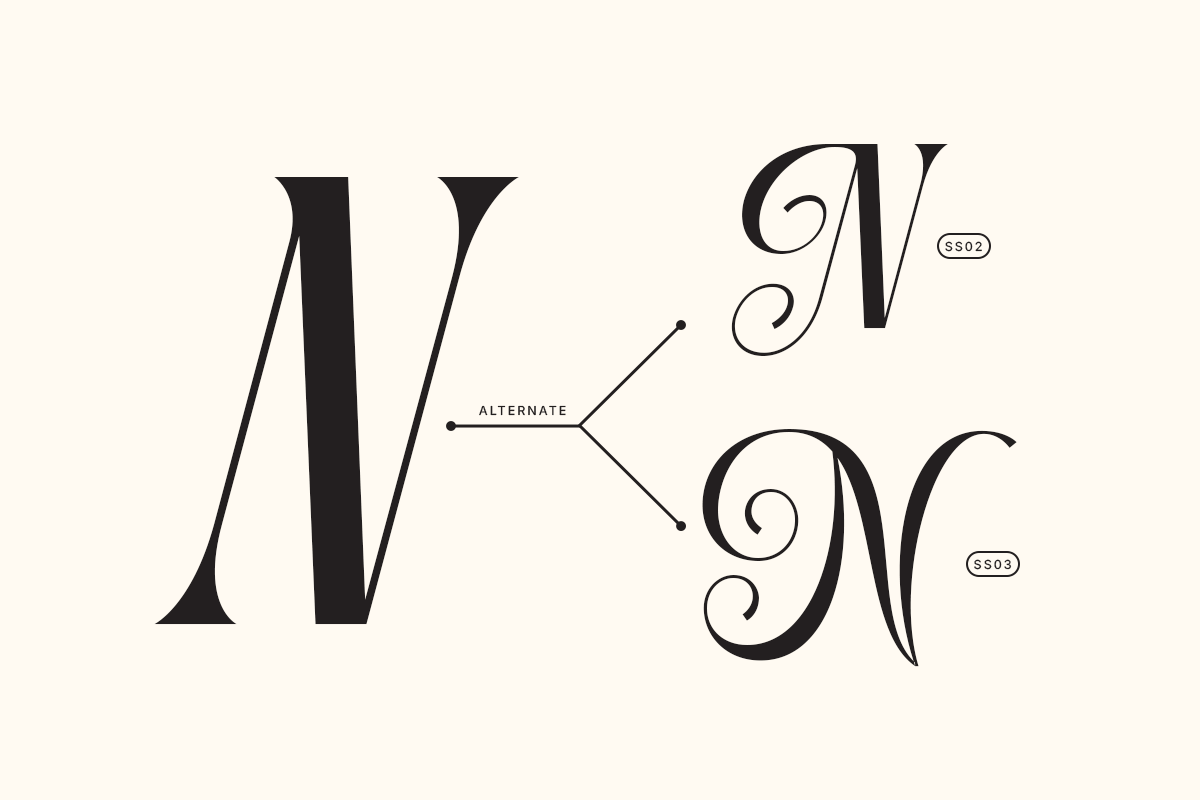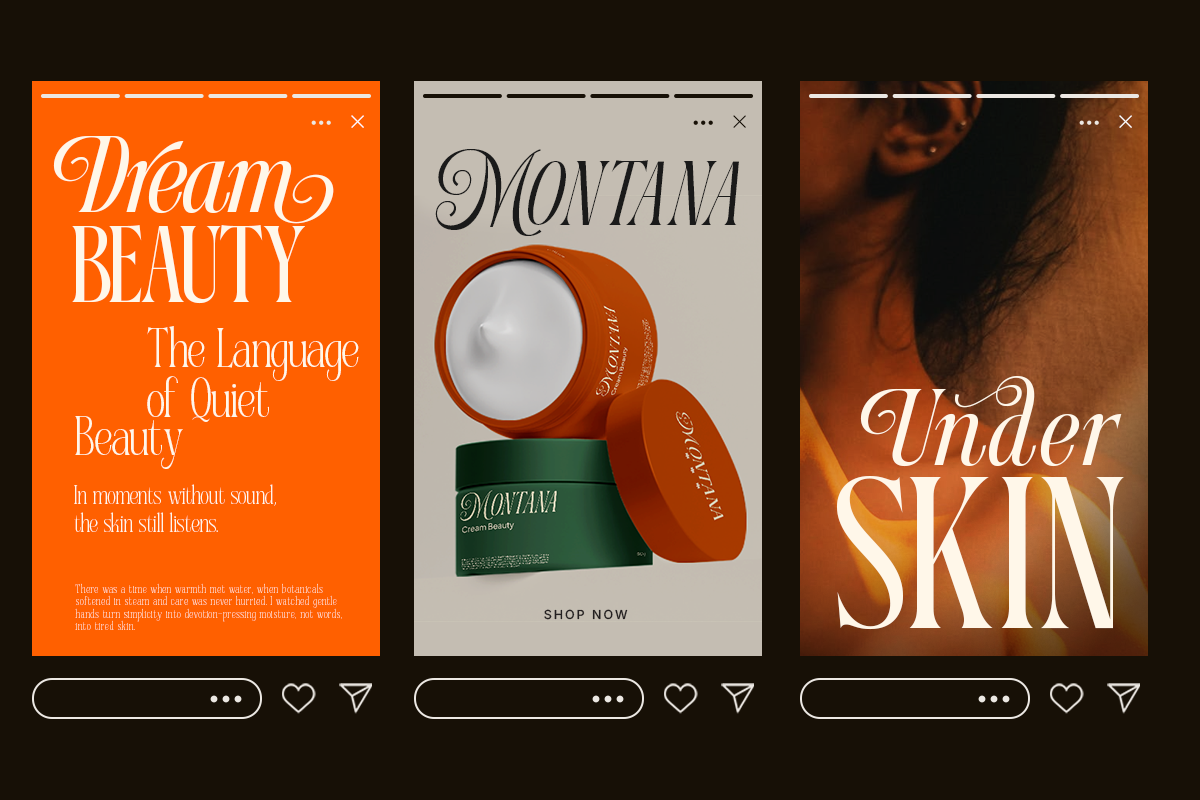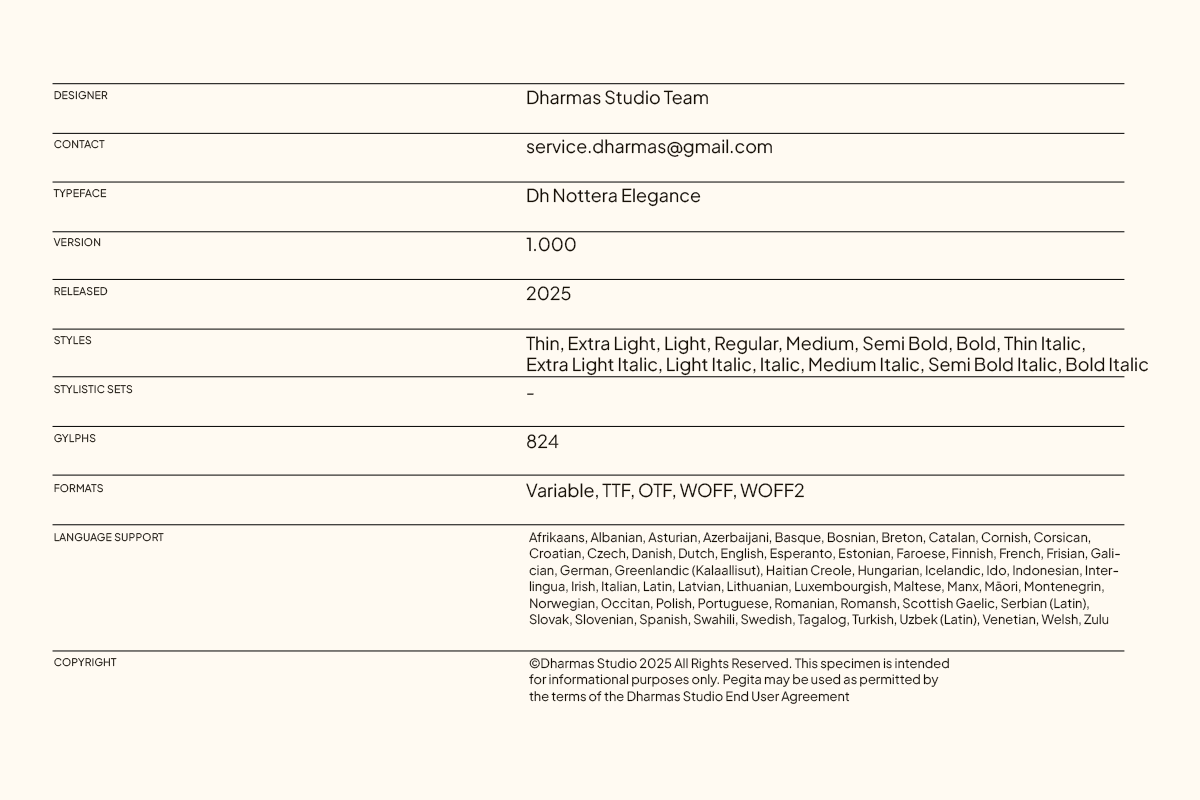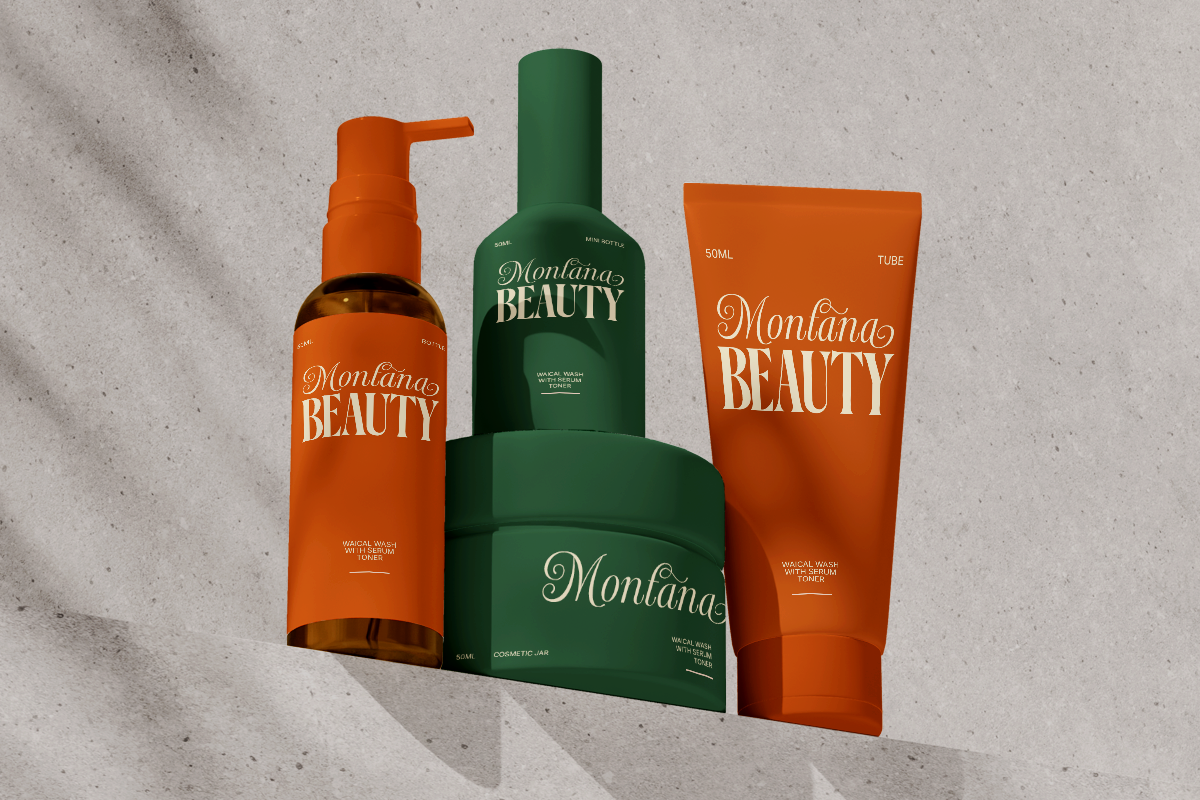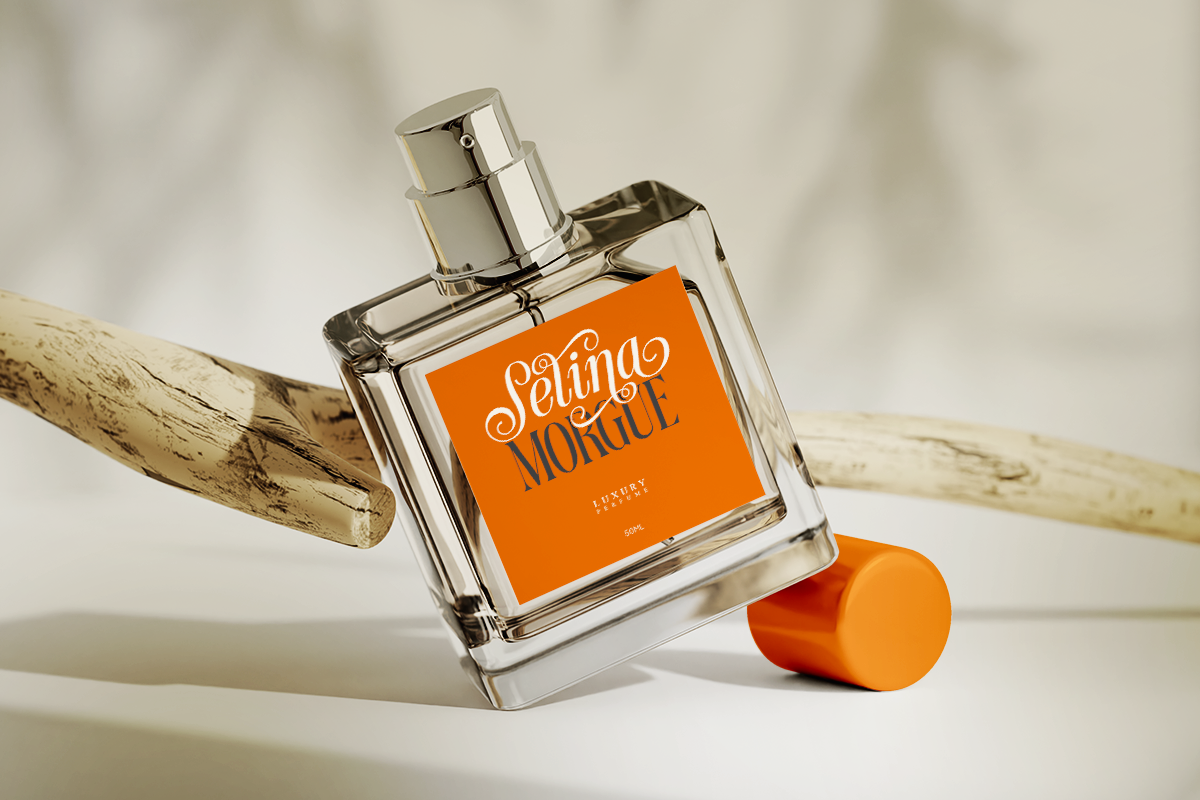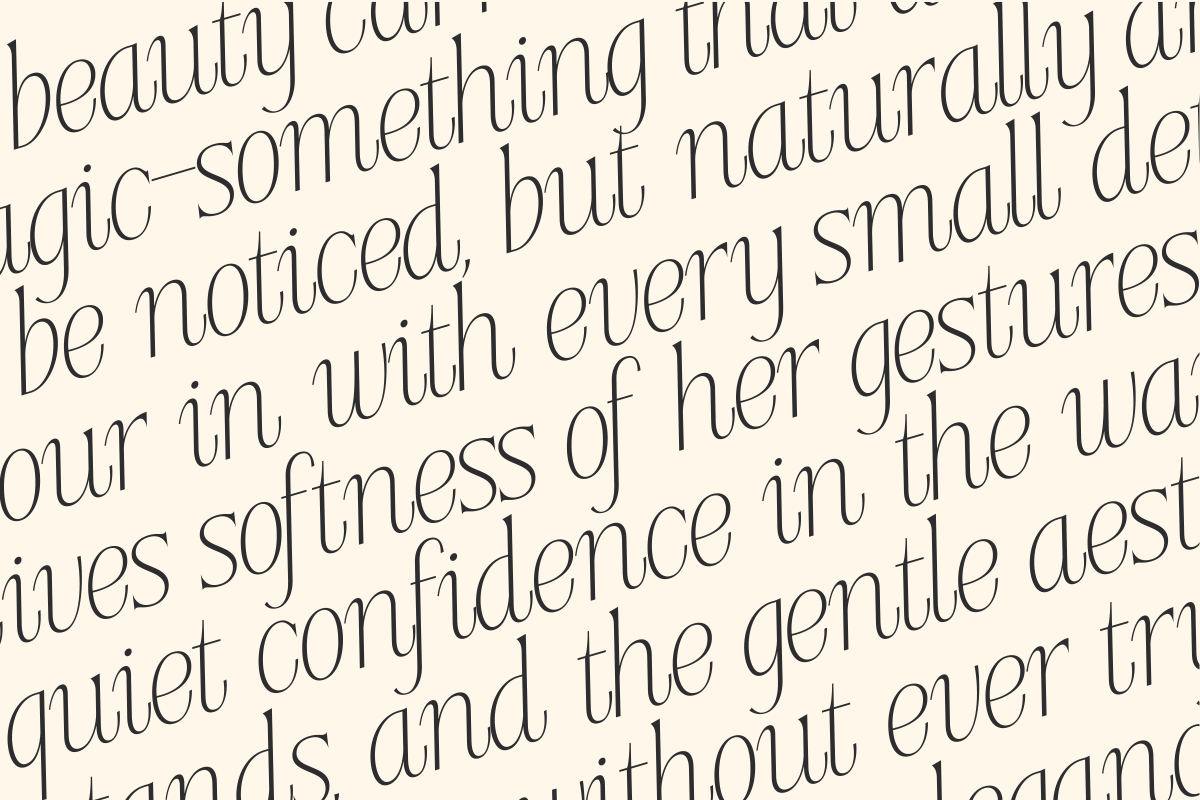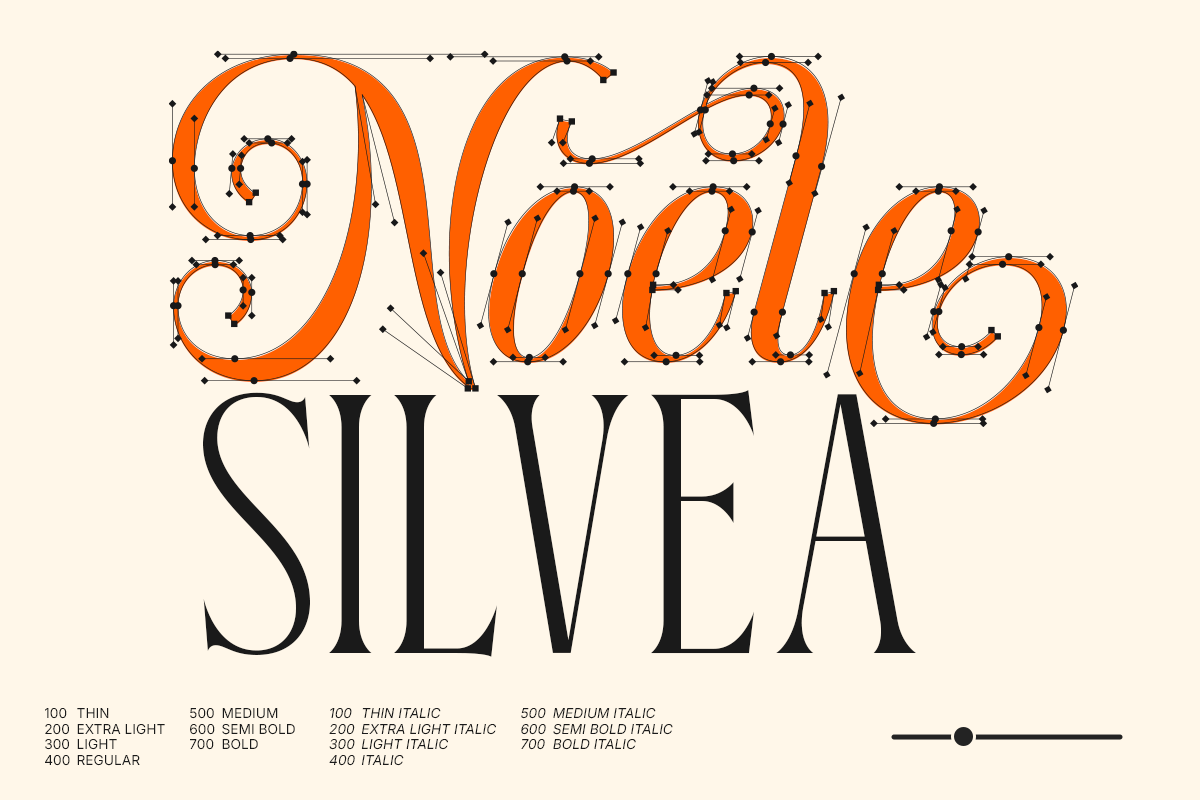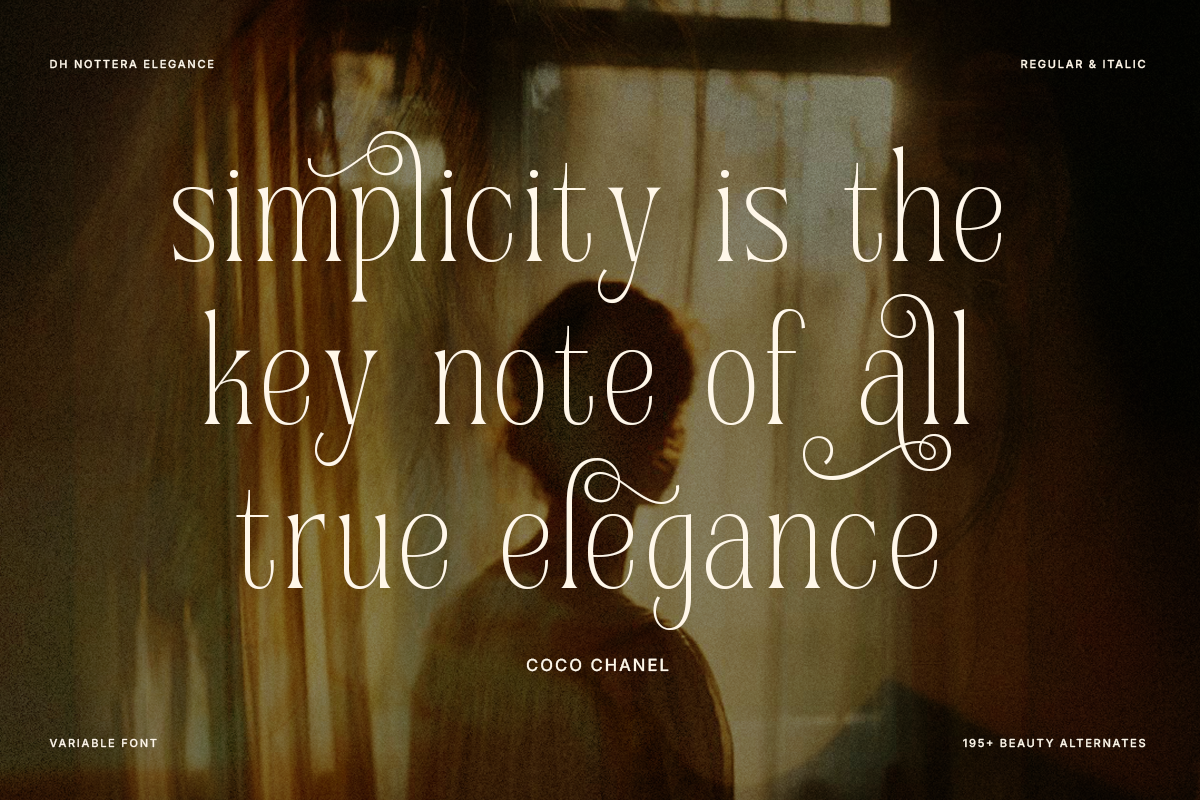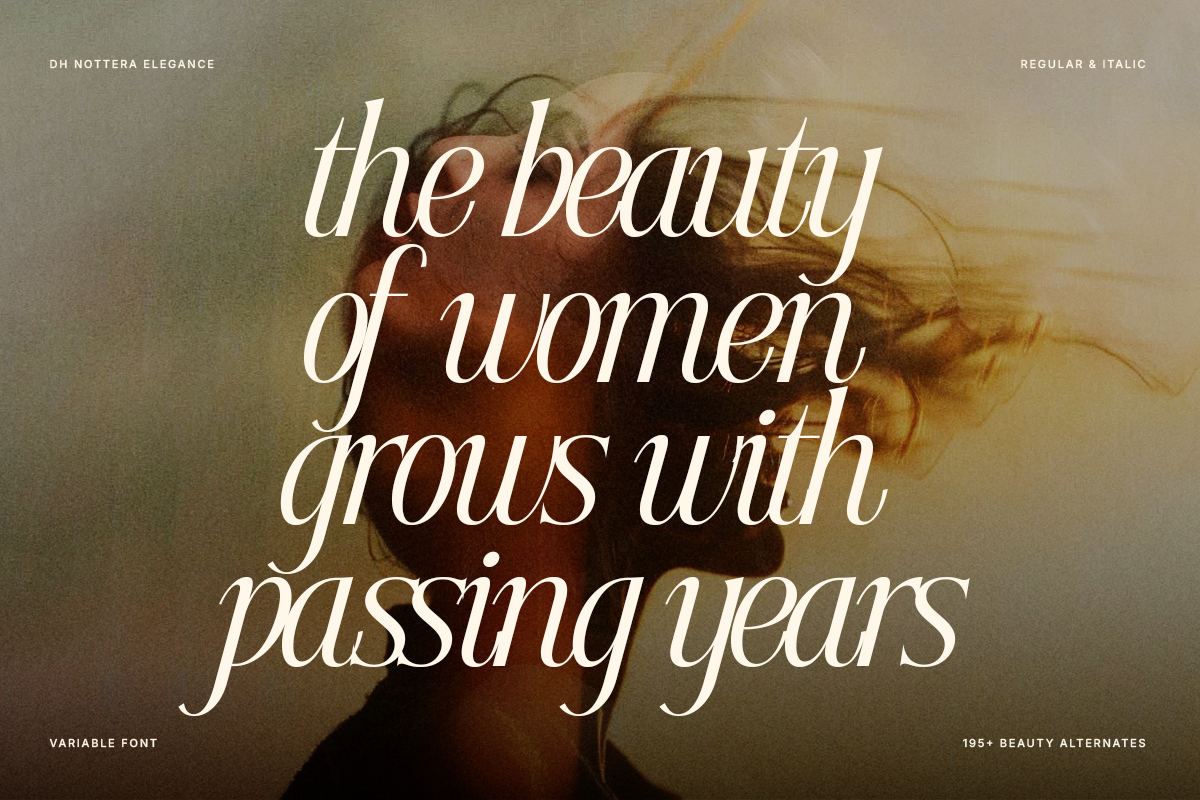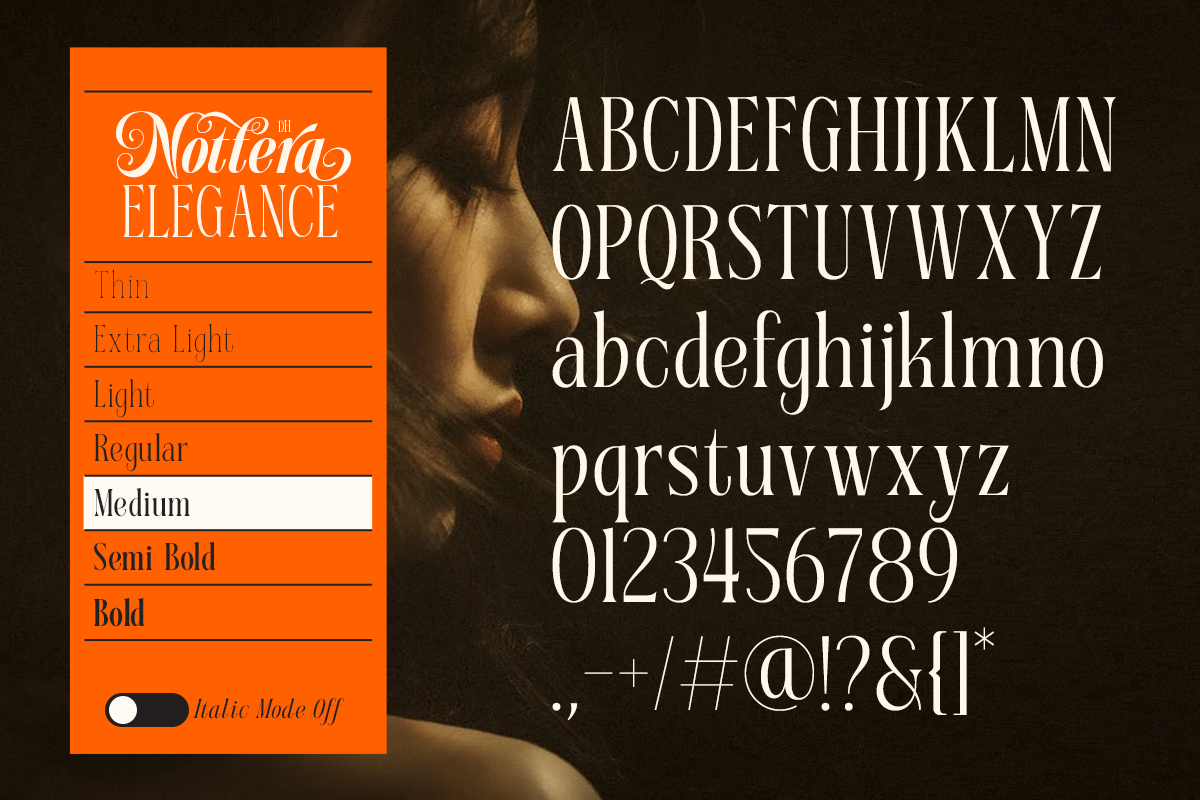
Dh Nottera Elegance - 7 Fashion Font
Dh Nottera Elegance is a luxurious fashion serif font designed to express beauty, grace, and timeless sophistication. Featuring high-contrast strokes, flowing curves, and refined details, this typeface is perfect for fashion editorials, beauty branding, cosmetic packaging, luxury logos, magazines, and elegant social media designs. Its classic yet modern character delivers a premium look that elevates every composition.
This font family includes 14 styles: Thin, Thin Italic, Extra Light, Extra Light Italic, Light, Light Italic, Regular, Italic, Medium, Medium Italic, Semi Bold, Semi Bold Italic, Bold, and Bold Italic, giving full typographic flexibility from delicate captions to strong headlines. With 195+ beauty alternates, designers can create unique letter connections, stylish swashes, and graceful variations, making Dh Nottera Elegance ideal for high-end branding, wedding design, editorial layouts, and sophisticated display typography.
Dh Nottera Elegance Font Features:
14 Styles (7 Weights + Italic): Thin, Thin Italic, Extra Light, Extra Light Italic, Light, Light Italic, Regular, Italic, Medium, Medium Italic, Semi Bold, Semi Bold Italic, Bold, and Bold Italic
195+ Beauty Alternates
Letters, numbers, symbols, punctuation, special alternates
Multilingual Characters available for:
Afrikaans, Albanian, Asu, Basque, Bemba, Bena, Breton, Chiga, Cornish, Dutch, English, Estonian, Filipino, Finnish, Friulian, Galician, German, Gusii, Indonesian, Irish, Italian, Kabuverdianu, Kalenjin, Kinyarwanda, Luo, Luxembourgish, Luyia, Machame, Makhuwa-Meetto, Makonde, Malagasy, Manx, Morisyen, North Ndebele, Nyankole, Oromo, Portuguese, Quechua, Romansh, Rombo, Rundi, Rwa, Samburu, Sango, Sangu, Scottish Gaelic, Sena, Shambala, Shona, Soga, Somali, Spanish, Swahili, Swedish, Swiss.